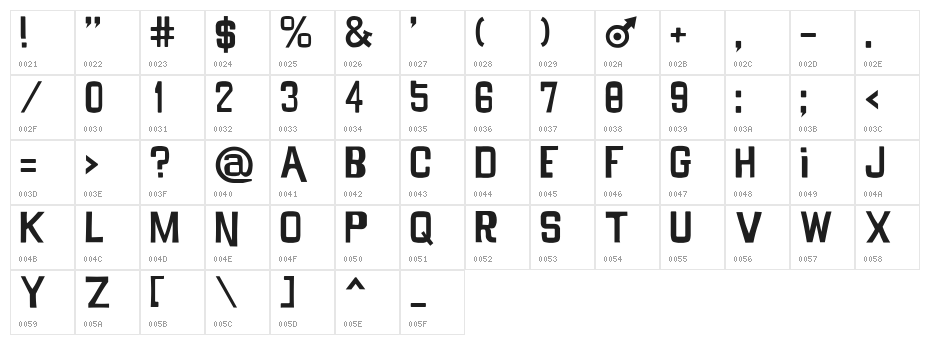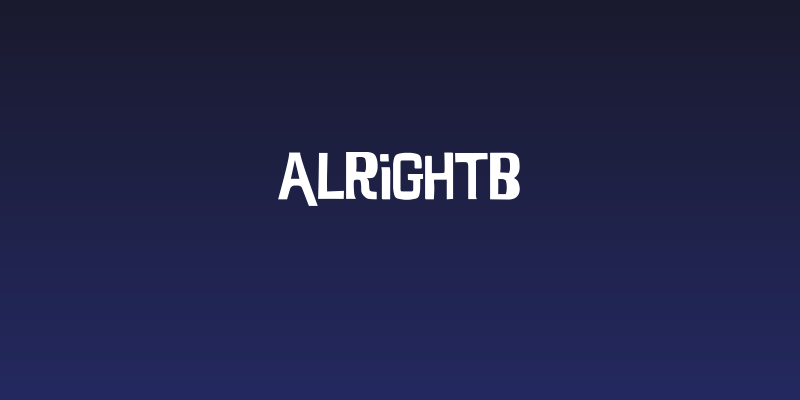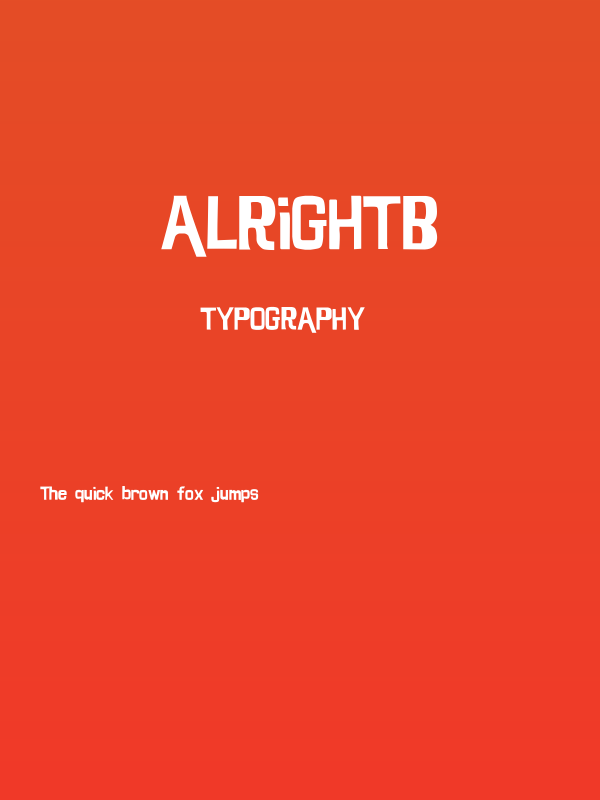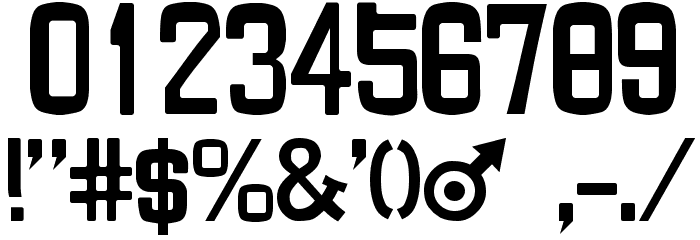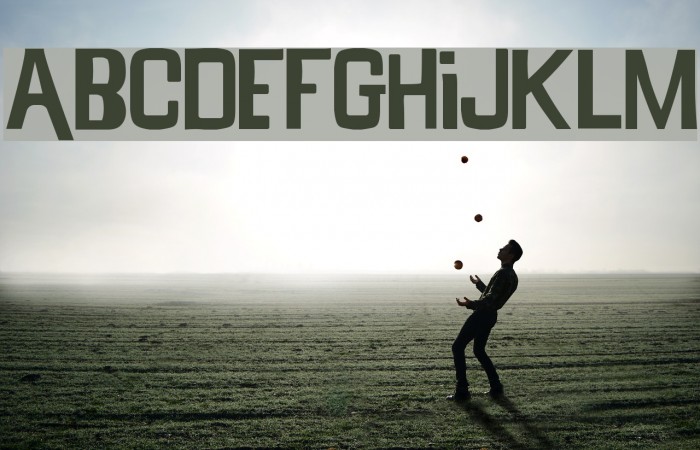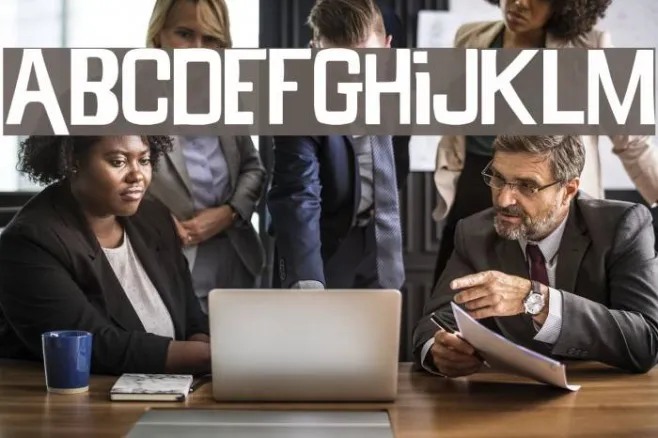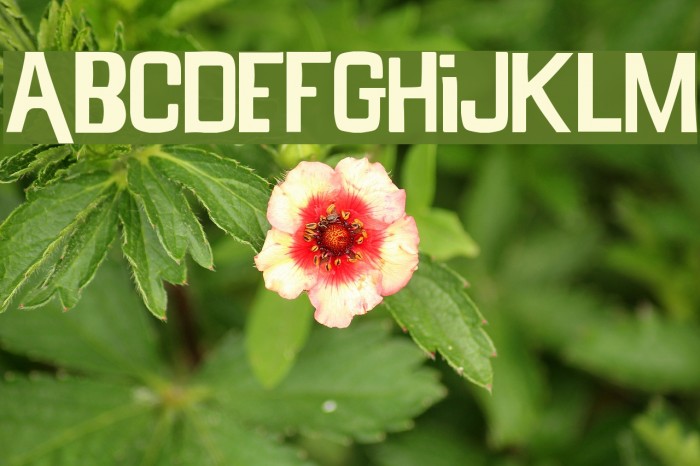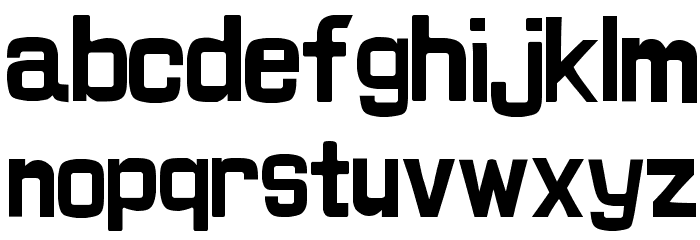
AlrightB Font
AlrightB Description
This font features a bold and impactful design with a modern, geometric aesthetic. The uppercase letters are strong and commanding, while the lowercase letters maintain a consistent weight, providing a harmonious balance. The numerals are clear and distinct, making them easily readable. Special characters are designed with a unique flair, adding to the font's overall versatility. The strokes are consistent in thickness, contributing to a uniform appearance across all characters. This font is ideal for projects that require a bold statement, such as headlines, posters, and branding materials.